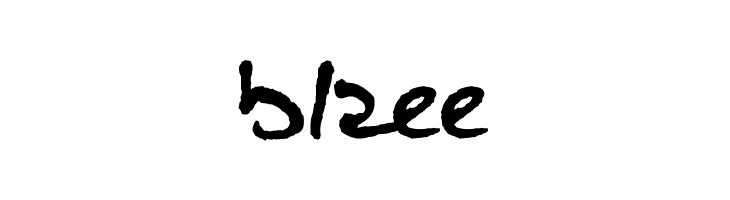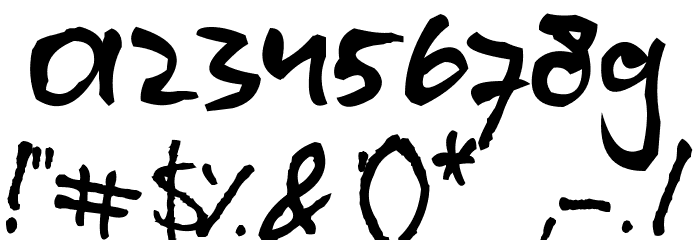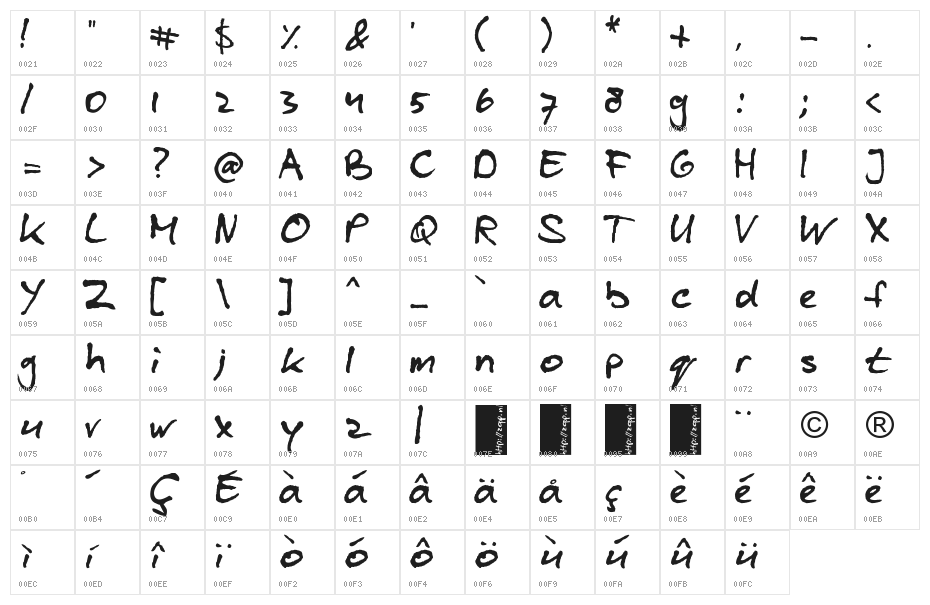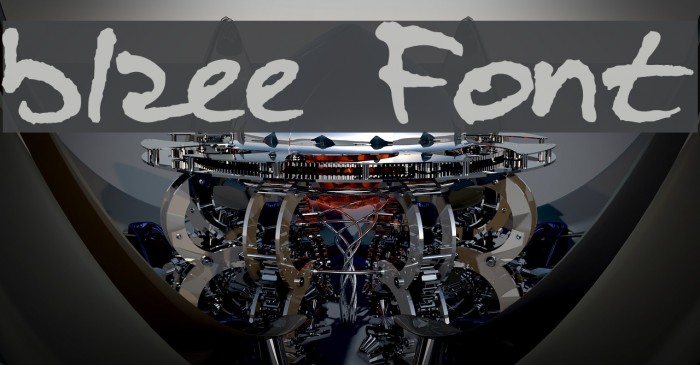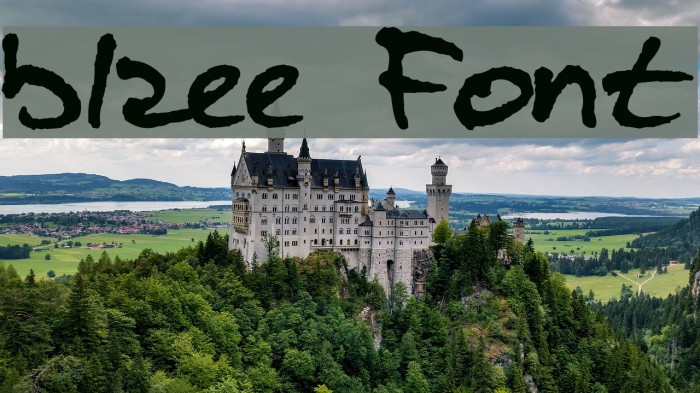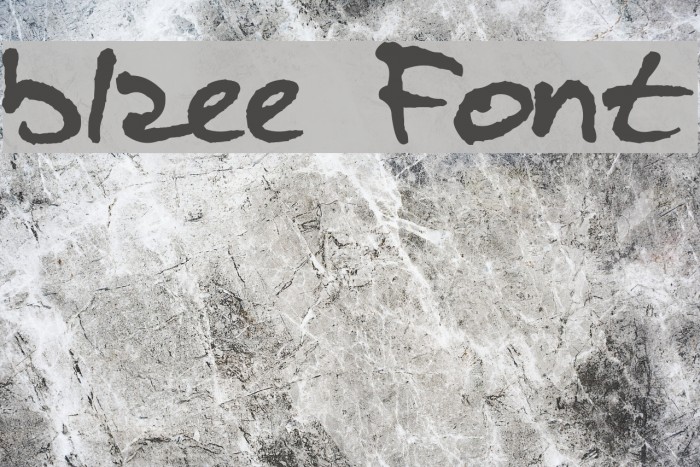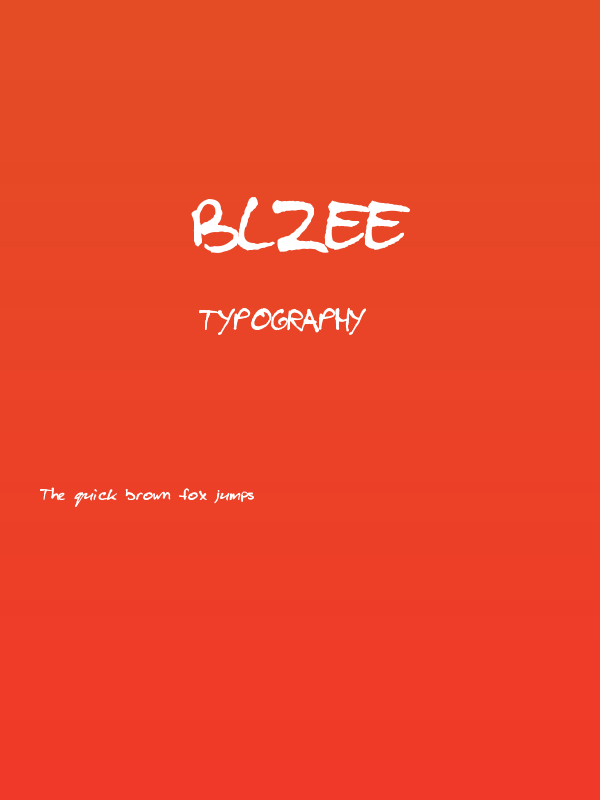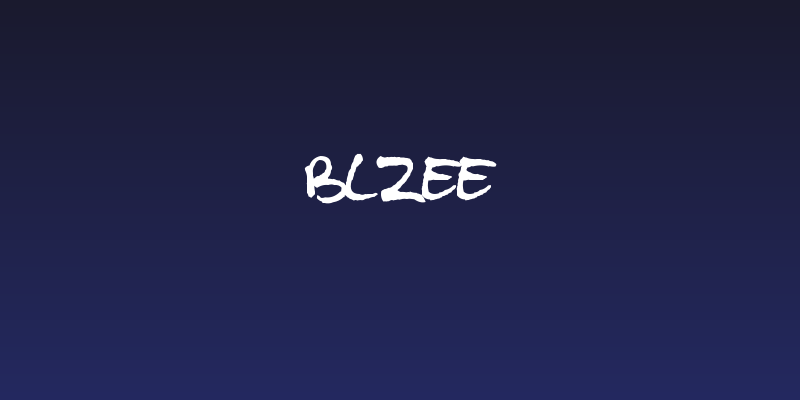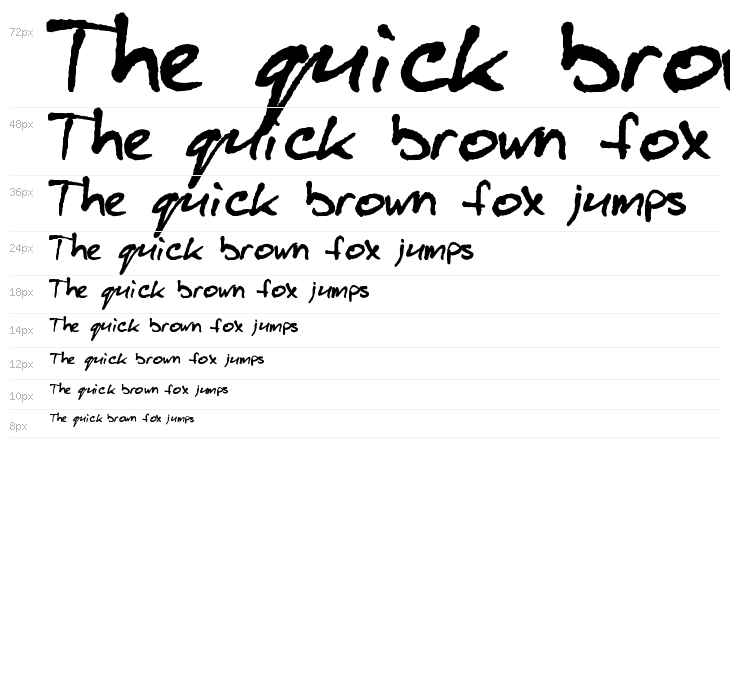
blzee Font
blzee Description
This font features a bold, handwritten style with a dynamic and energetic appearance. The letters are irregular and slightly slanted, giving a casual and informal feel. The strokes are thick and uneven, adding to the hand-drawn aesthetic. The uppercase and lowercase letters maintain a consistent style, with some characters exhibiting unique flourishes. The numbers and special characters follow the same bold and expressive design, making the font suitable for creative and artistic projects.
Fonts by Dennis van Schajik - www.zopp.nl
| Overall Style | Casual, Artistic |
| Use Case | Logos, Posters, Invitations |
| Proposed Projects | Ideal for projects that require a personal touch, such as greeting cards, invitations, posters, and artistic branding. |